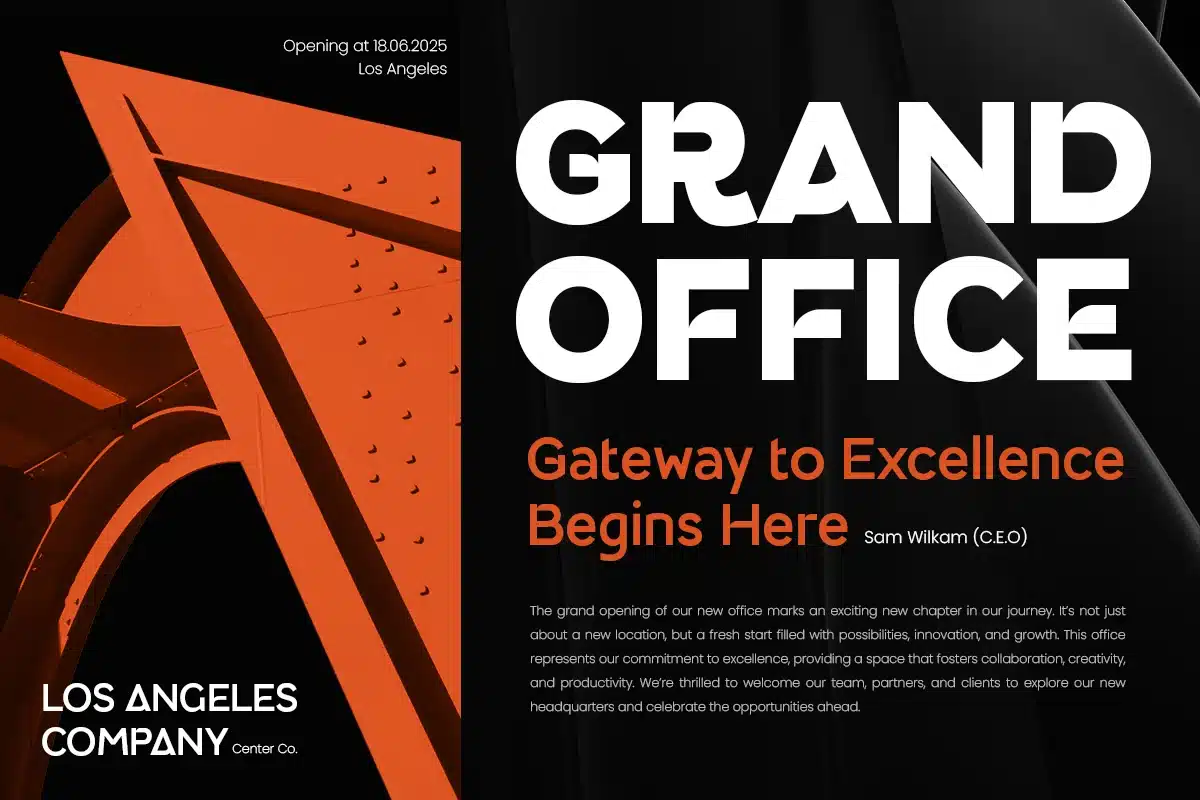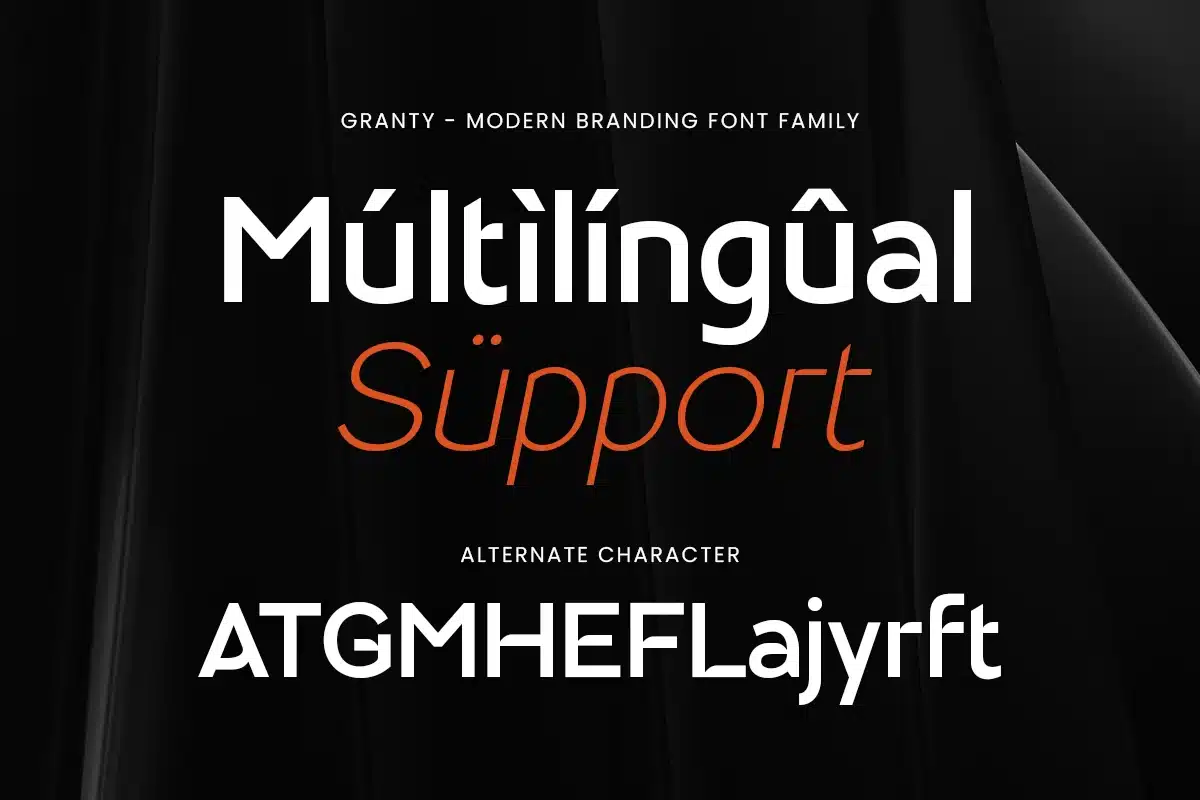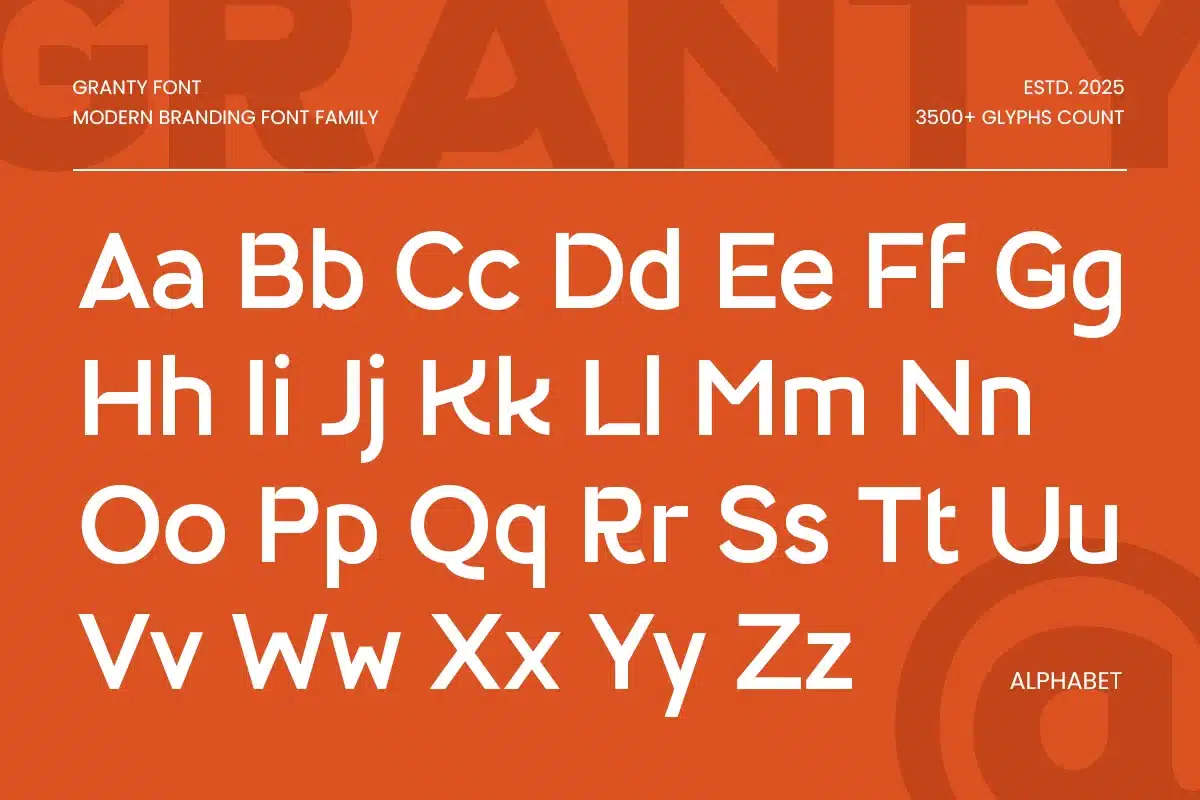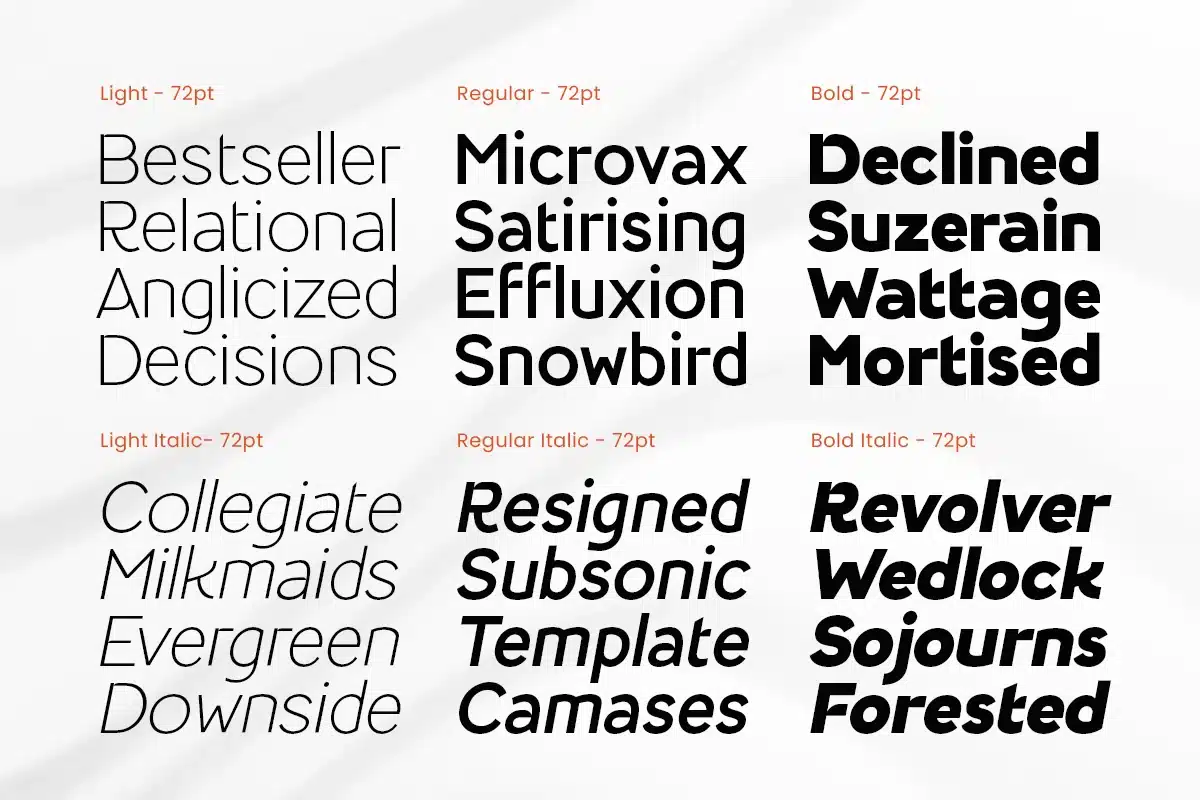
Granty – Modern Branding Font Family
Granty – Modern Branding Font Family is a versatile contemporary typeface family created to support clean, professional, and scalable brand identities. Inspired by modern branding systems, minimal typography, and functional design principles, Granty is designed for designers who need consistency and flexibility across multiple brand touchpoints.
With its balanced proportions, clean letterforms, and harmonized styles, Granty allows you to build cohesive logos, headlines, and branding materials with ease. Each style within the family is carefully crafted to work seamlessly together, making Granty ideal for complete visual identity systems.
Granty Font Features
- Complete character set including uppercase, lowercase, numerals, symbols, and punctuation
- Ready with light, regular, bold and each of them coming with italic version
- OpenType features included to support modern branding and professional typography needs
Granty is Perfect For
- Modern branding and visual identity systems
- Business, startup, and corporate branding
- Professional logo and logotype design
- Website headers and digital brand assets
- Marketing materials and presentations
- Clean, contemporary, and scalable design projects
Whether you are building a modern brand identity, creating professional branding assets, or developing a flexible design system, Granty provides clarity, consistency, and contemporary appeal across all applications.